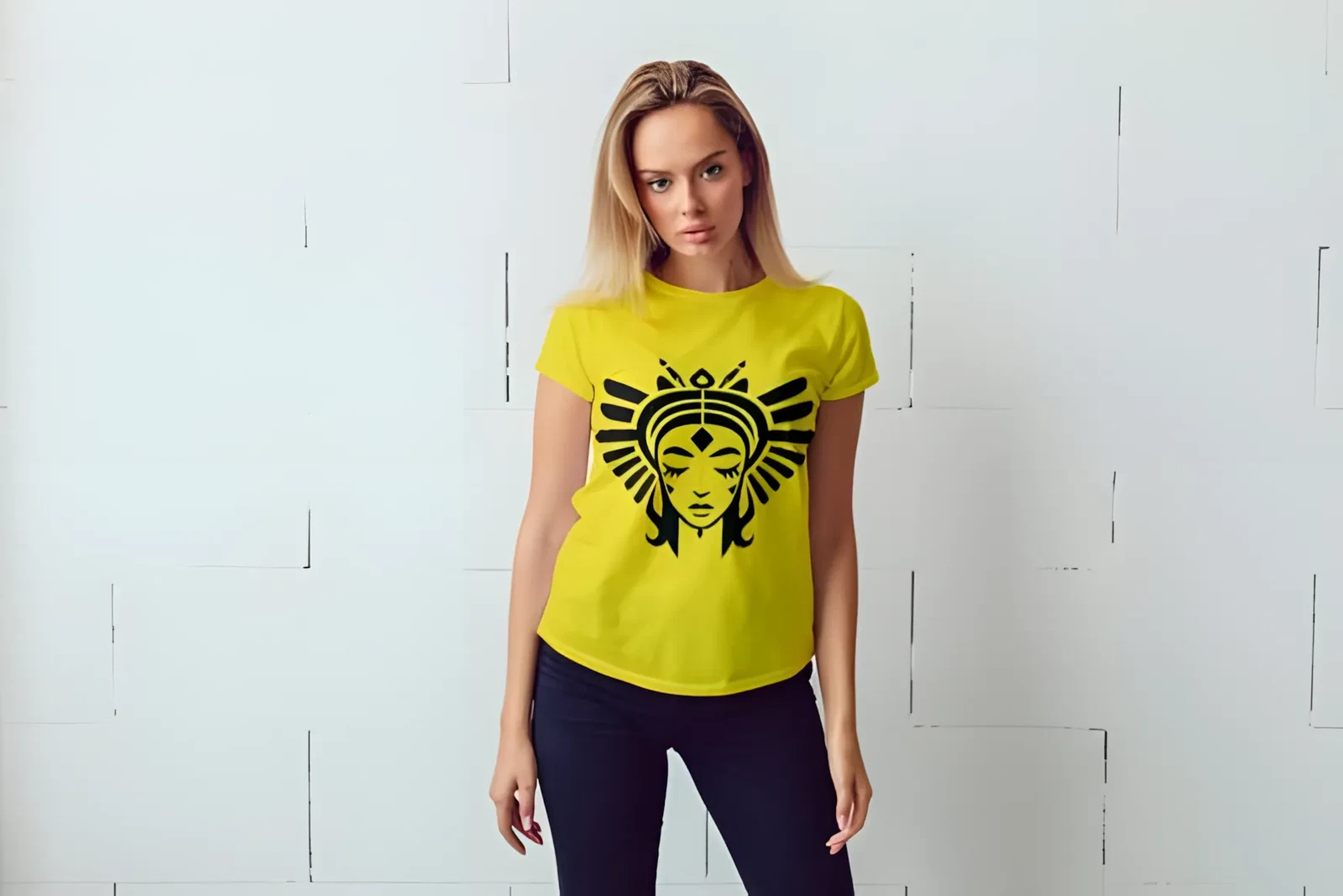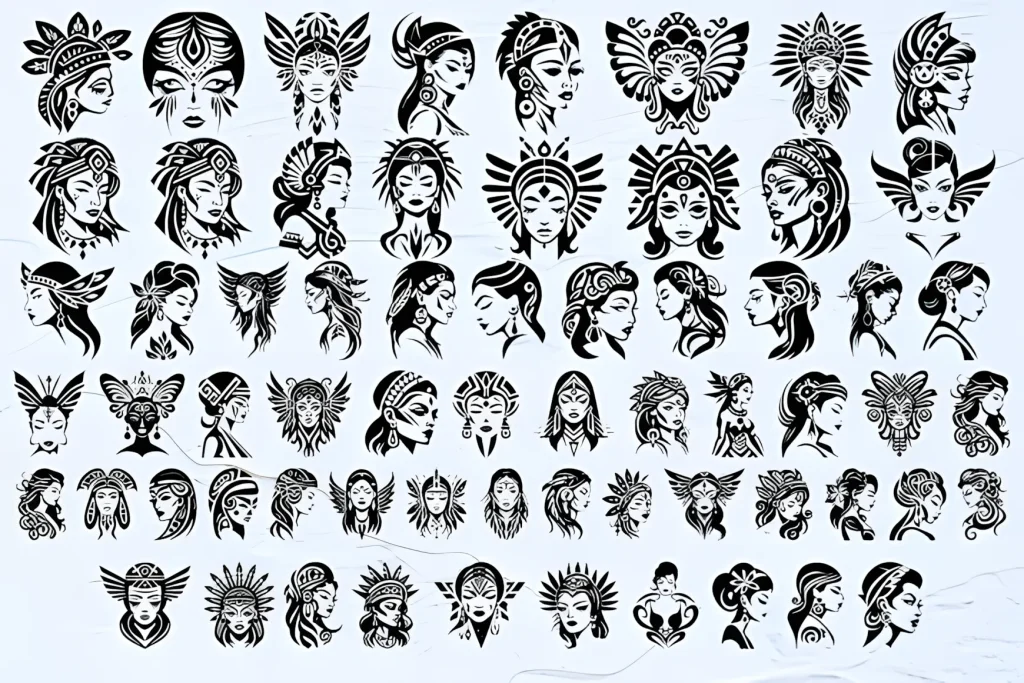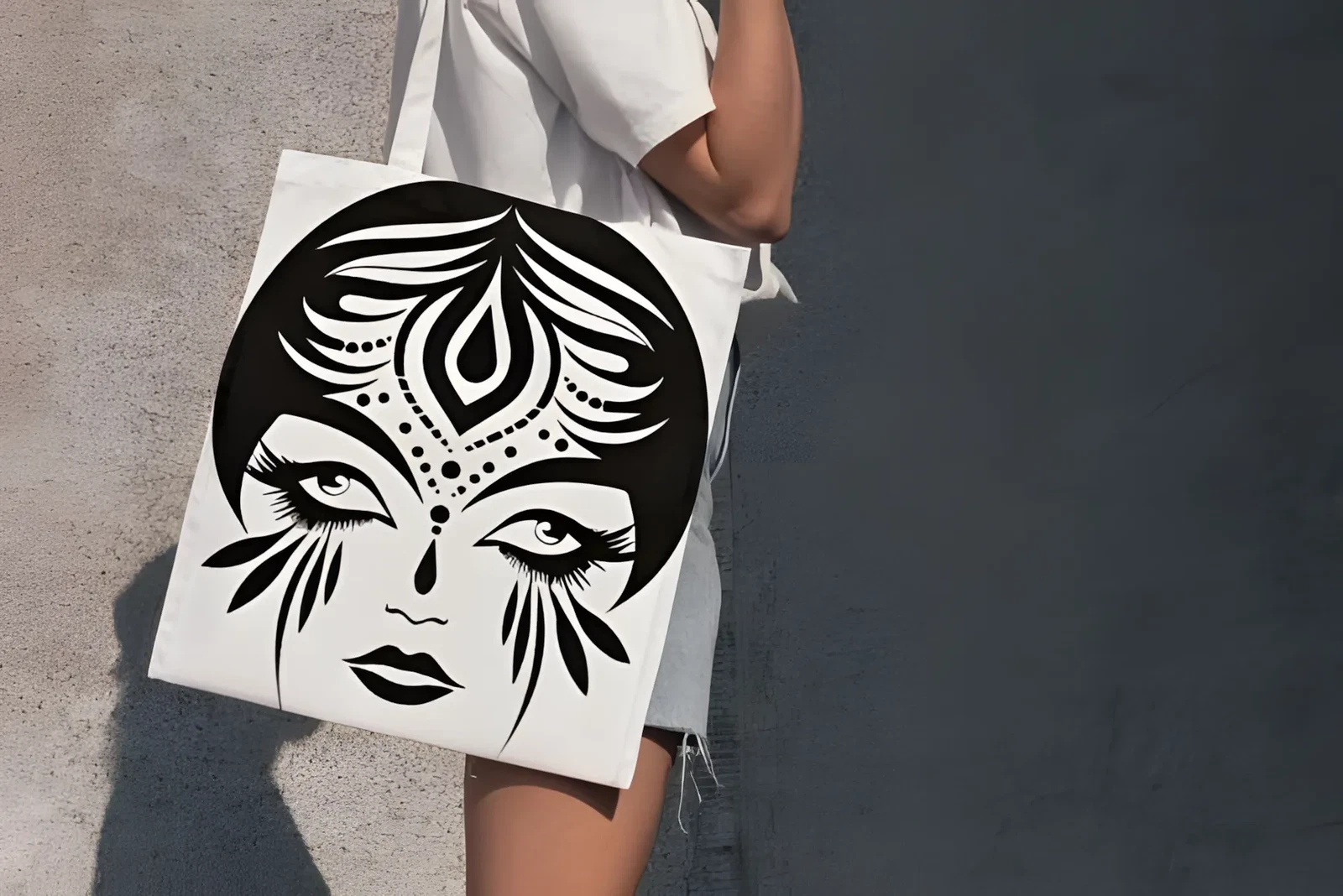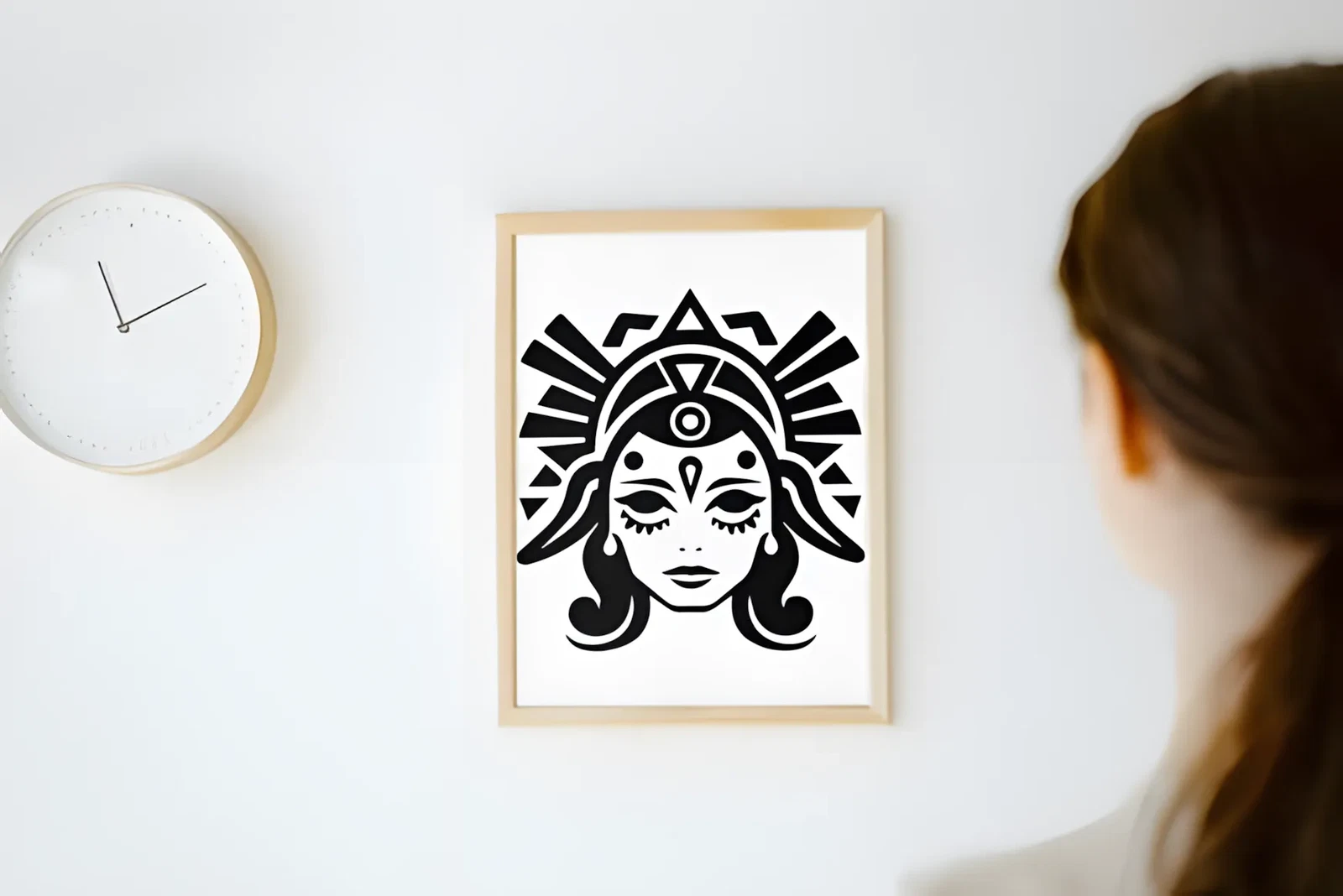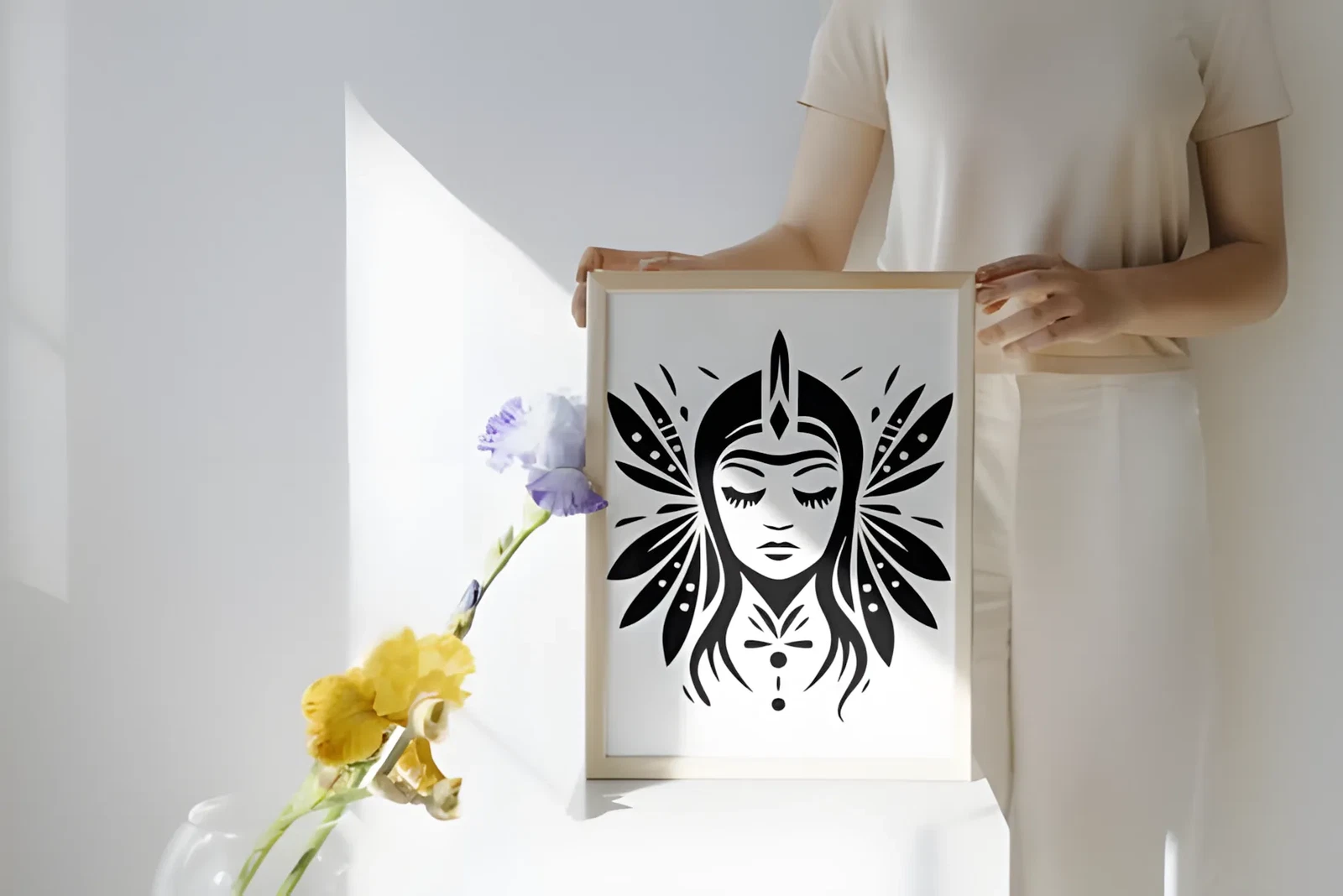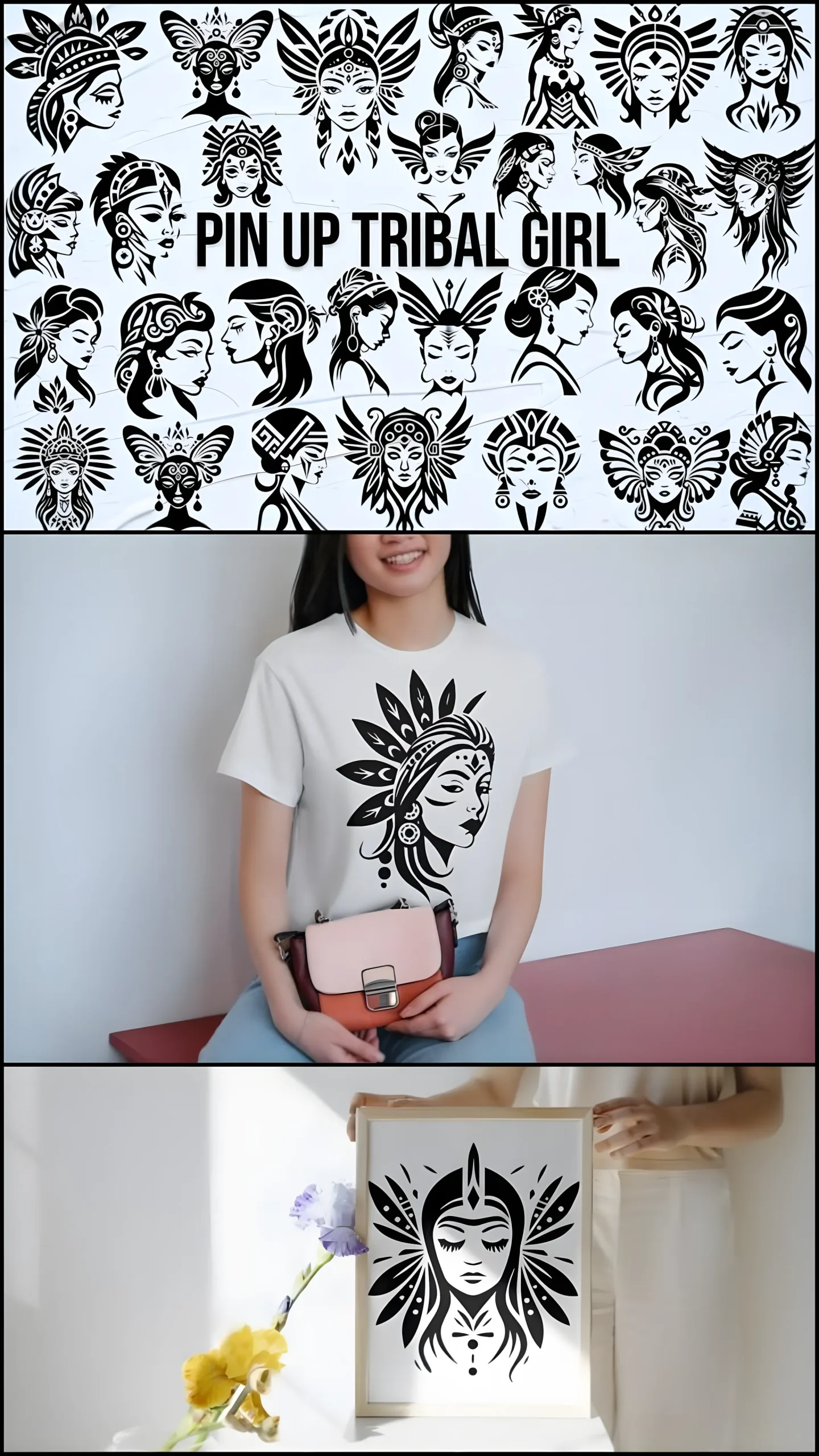
Some fonts exist to decorate text, while others are created to become the main visual element. Pin-up Tribal Girl Font clearly belongs to the second group. This is a bold dingbats typeface that combines vintage pin-up aesthetics with tribal and tattoo-inspired illustration.
Instead of traditional letters, the font uses expressive female character icons, stylized faces, and ornamental motifs. Each glyph feels like a standalone illustration, making the font ideal for designs that rely on strong visual identity rather than written words.
Visual Style and First Impression
Pin-up Tribal Girl Font delivers a striking first impression. The illustrations are detailed yet clean, blending classic pin-up glamour with tribal symmetry and tattoo art influences. Faces are expressive, confident, and stylized, creating a strong retro-feminine visual tone.
The artwork is monochrome, which enhances versatility. The black-and-white style allows the icons to work equally well in print, digital layouts, and cutting projects. Despite the decorative nature, the designs feel controlled and professional rather than chaotic.
The overall impression is bold, feminine, and visually confident.
A Dingbats Font Built as an Illustration Set
This font is designed as a dingbats typeface, meaning each character functions as an icon or graphic element. The set includes a wide range of pin-up tribal girl illustrations, numbers, and supporting symbols.
Because all glyphs share the same visual language, they can be combined seamlessly in a single layout. This makes the font feel like a curated illustration pack rather than a random symbol collection.
Designers can use single icons as focal points or combine several to build decorative compositions.
Retro Pin-up Meets Tribal Tattoo Art
The core concept behind Pin-up Tribal Girl Font is fusion. It merges:
- vintage pin-up style
- tribal ornamentation
- tattoo-inspired line work
This combination gives the font a timeless yet edgy feel. It references classic glamour while incorporating bold graphic elements often associated with tattoo culture and alternative art.
The result is a typeface that feels expressive, confident, and visually rich.
Practical Design Applications
Apparel and Merchandise
One of the strongest uses for Pin-up Tribal Girl Font is apparel design. The bold illustrations translate perfectly to:
- t-shirts
- hoodies
- tote bags
- hats
The clean outlines ensure good results in screen printing, vinyl cutting, and embroidery. Each glyph works as a statement graphic without needing additional design elements.
Tattoo-Inspired and Alternative Branding
This font fits naturally into branding projects with an alternative or artistic edge. It works well for:
- tattoo studios
- alternative fashion brands
- beauty or lifestyle projects with a retro aesthetic
Icons can be used as logos, emblems, or decorative accents, helping brands stand out with a strong visual identity.
Posters, Prints, and Wall Art
Pin-up Tribal Girl Font is also well suited for posters and decorative prints. The illustrated glyphs can serve as central visual elements, making layouts feel bold and expressive.
It works especially well for:
- retro posters
- art prints
- wall décor
- themed illustrations
Because the font is vector-based, designs scale cleanly to large formats.
Stickers, Decals, and Craft Projects
The font is compatible with Cricut, Silhouette, and other cutting machines. This makes it ideal for:
- vinyl decals
- stickers
- crafting projects
- custom accessories
The tattoo-style line work cuts cleanly and remains recognizable even at smaller sizes.
Readability and Usage Notes
Pin-up Tribal Girl Font is not designed for typing text. It is meant to be used as:
- decorative icons
- graphic elements
- visual symbols
Each glyph should be treated like an illustration rather than a letter. Spacing and placement play a key role in maintaining visual balance, especially when combining multiple icons in one design.
Emotional Tone and Design Feel
The emotional tone of Pin-up Tribal Girl Font is confident, bold, and expressive. It feels empowering rather than playful, artistic rather than cute.
This makes it suitable for designs that aim to communicate:
- femininity with strength
- vintage glamour
- alternative style
- bold self-expression
The font carries attitude and presence, making it ideal for statement visuals.
Pin-up Tribal Girl Font turns illustration into a typographic system. By blending retro pin-up aesthetics with tribal and tattoo influences, it offers a unique visual language that stands out immediately.
For designers looking to create bold, expressive, and feminine visuals with an alternative edge, this font provides a powerful and flexible tool. Used thoughtfully, it transforms simple layouts into confident statement designs with strong personality.